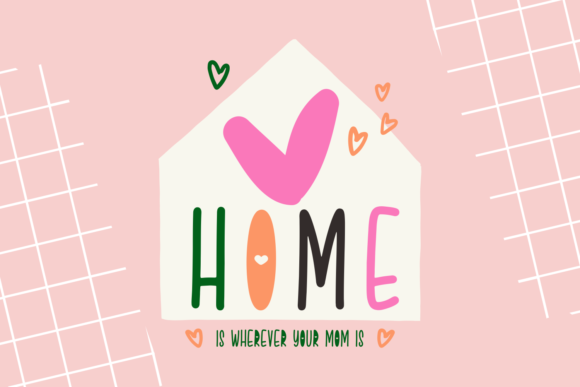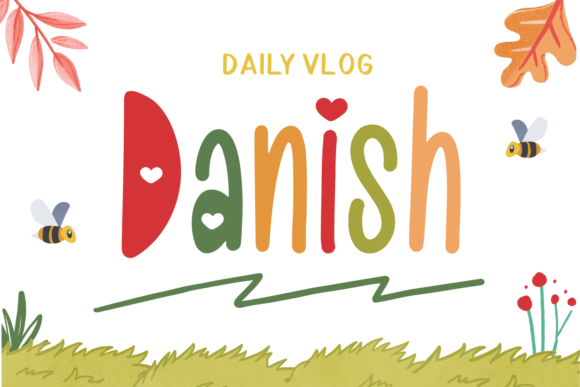
Tamepik Font
db-ku.com - Script & Handwritten -- Introducing Tamepik, a fancy and elegant handwritten font created to impress your audience and make your branding shine.